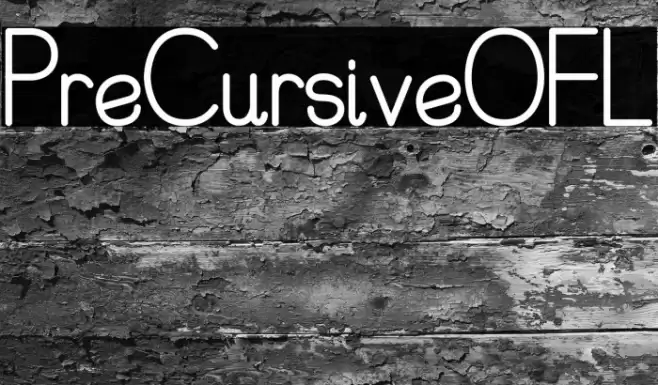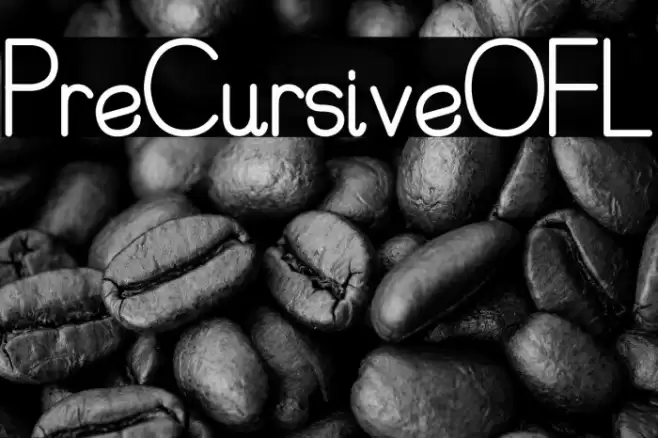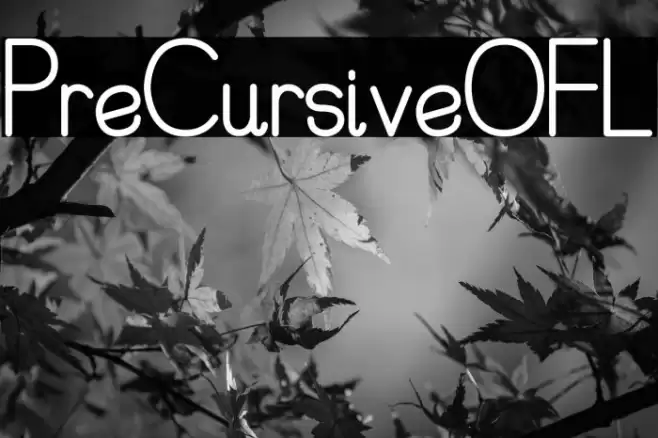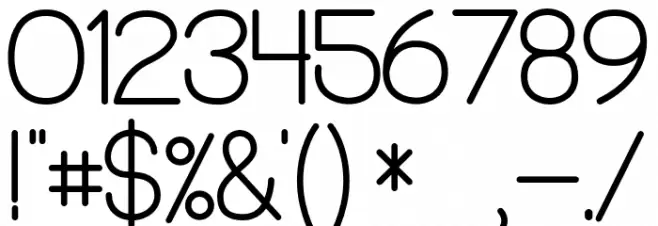
PreCursiveOFL Font
PreCursiveOFL Description
This font features a clean and modern design with rounded edges and a monolinear stroke, giving it a friendly and approachable appearance. The uppercase letters are tall and slightly condensed, while the lowercase letters maintain a consistent height, enhancing readability. The numerals are clear and distinct, with a uniform width that complements the overall style. Special characters are well-integrated, maintaining the font's cohesive look. The consistent line weight across all characters provides a harmonious and balanced feel, making it suitable for various applications.
A modern, rounded font with a monolinear stroke and friendly appearance from Sans Serif fonts.
- Proposed Projects: Ideal for educational materials, children's books, signage, and branding projects that require a welcoming and approachable look.